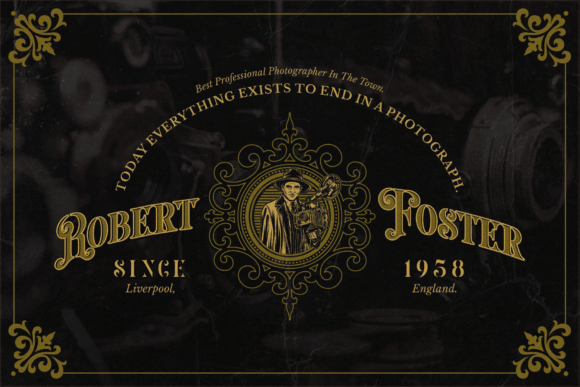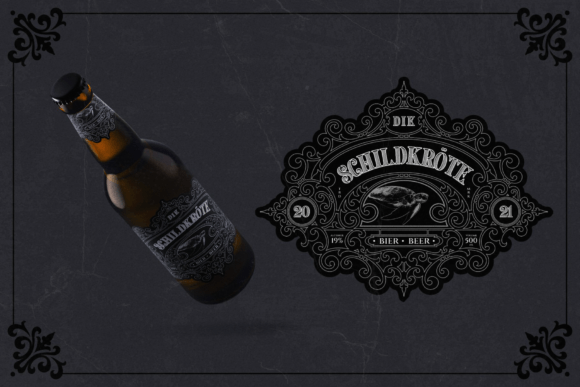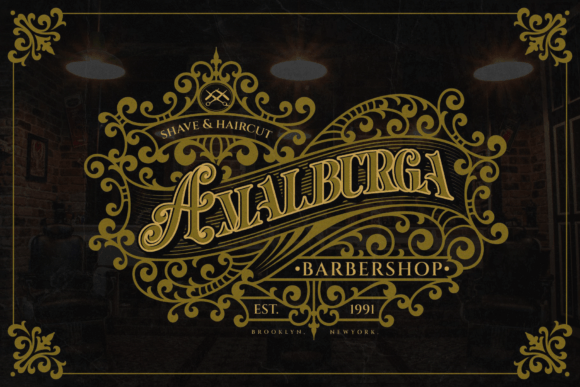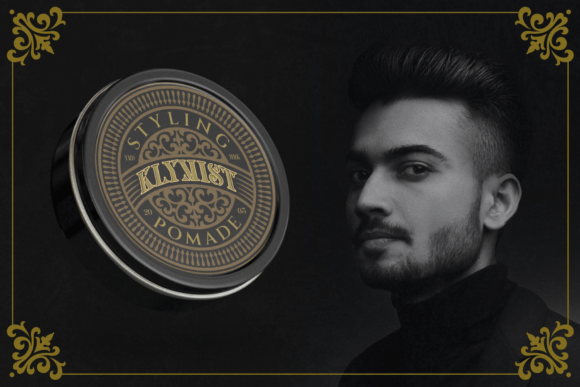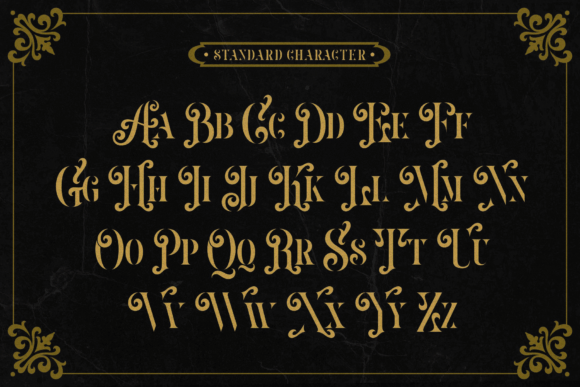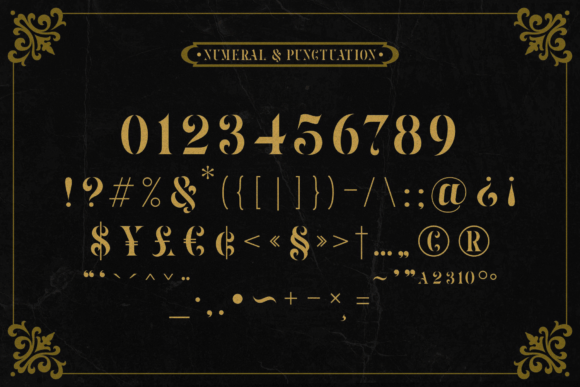
Introduction to Luazerva Font
Luazerva is a blackletter font that is quite unique because the base is a classic serif font in the Victorian genre.
It is unique because this font has a characteristic that is broken and loses the thin body of the letter itself, so besides being unique this font also has rather difficult readability So this font is really a typeface that is not suitable for making long text.
Key Features of Luazerva Font